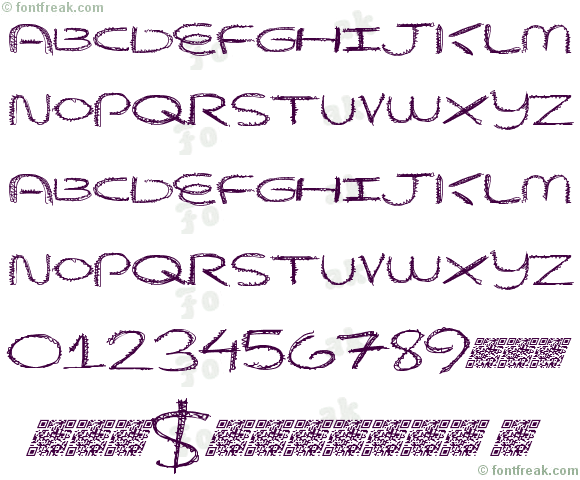
BeaverScratches
BeaverScratches — Character Map
About BeaverScratches
BeaverScratches by Xerographer Fonts is a uniquely styled display typeface that captures the essence of playful creativity and rustic charm. This font features a handwritten aesthetic with uneven stroke weights that mimic the natural, organic look of hand-drawn letters. The strokes have a light texture, giving the impression of being lightly scratched, which adds a whimsical touch to any design. The letterforms exhibit a casual spacing that enhances readability while retaining a fun, informal vibe, making it perfect for a variety of projects.
Ideal for use in creative contexts, the BeaverScratches font is particularly well-suited for wedding invitations, where its charming style can convey a sense of warmth and personal touch. Additionally, it works wonderfully for movie posters, offering a quirky flair that can capture attention and intrigue potential viewers. Restaurant menus can also benefit from its unique character, helping to create an inviting atmosphere that encourages diners to explore the offerings. Furthermore, this font is a great choice for branding and marketing materials aimed at small businesses, as it helps to establish a memorable identity that resonates with customers.
Targeting graphic designers, small business owners, and content creators, BeaverScratches provides a versatile option for those looking to add a distinctive flair to their work. Its freeware license allows for easy access and experimentation, making it an attractive choice for various projects.
What truly sets the BeaverScratches font apart is its ability to blend a playful aesthetic with functional design. The organic, hand-drawn quality invites creativity, making it a go-to option for any project that aims to stand out. For anyone looking to enhance their designs, the BeaverScratches font free download is an exceptional resource.